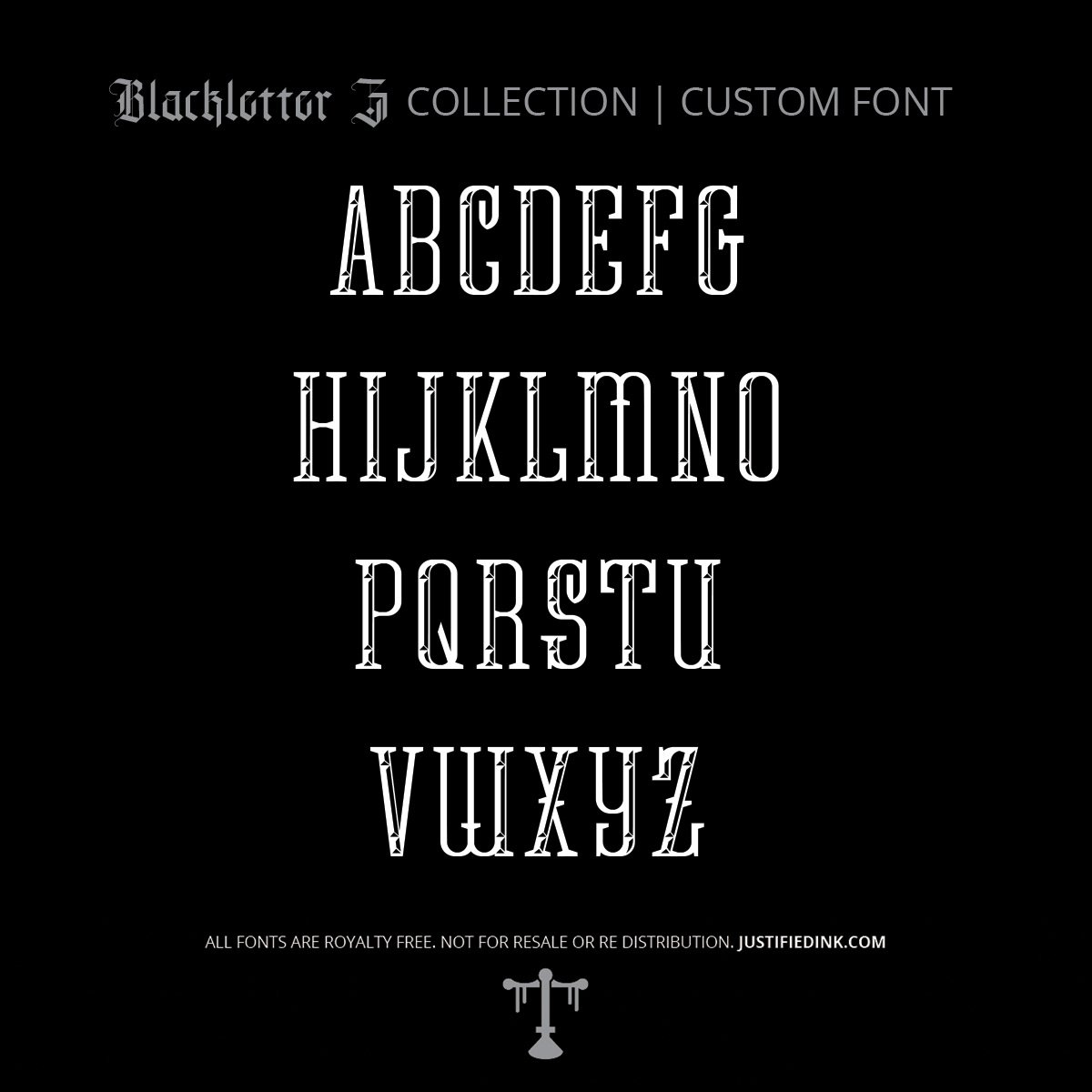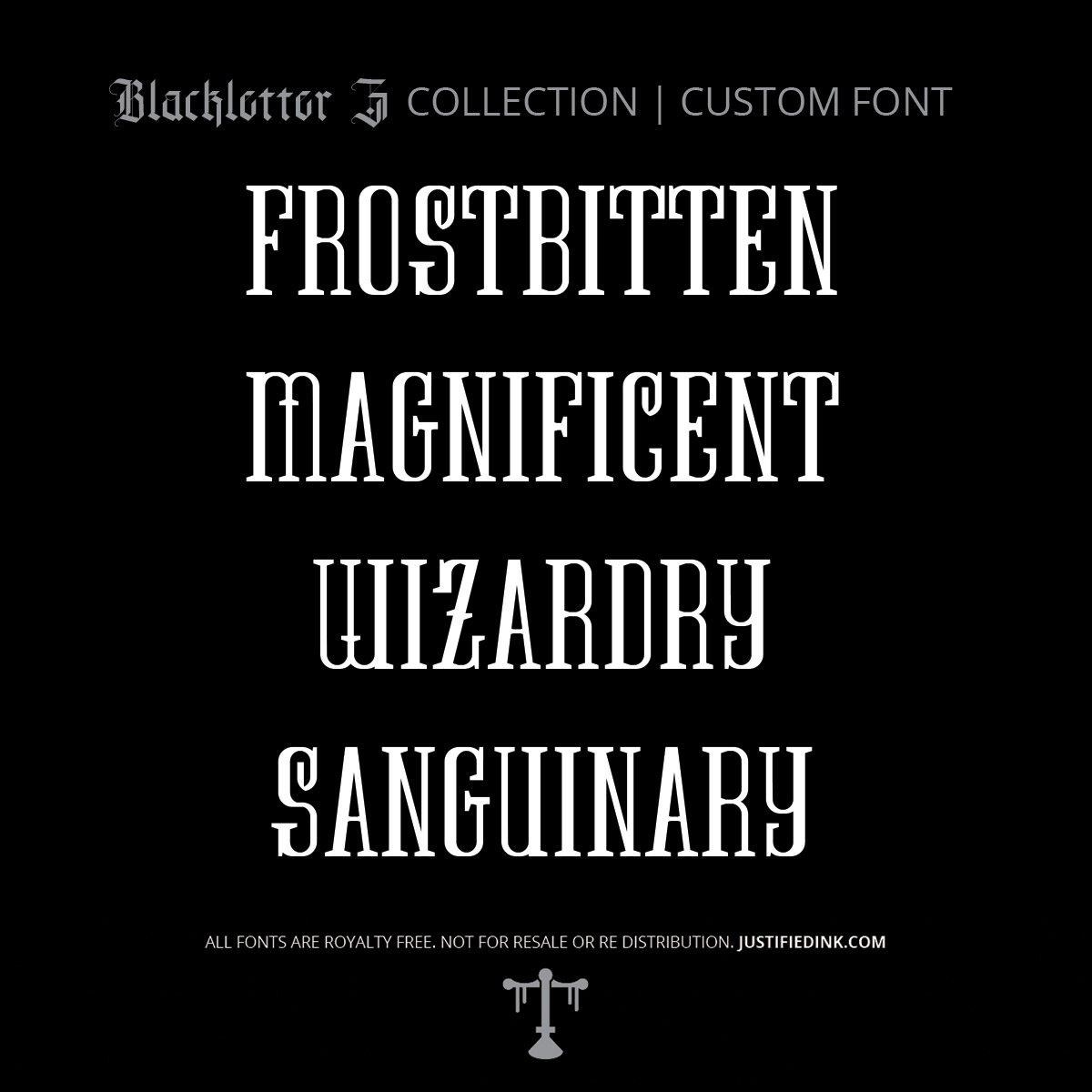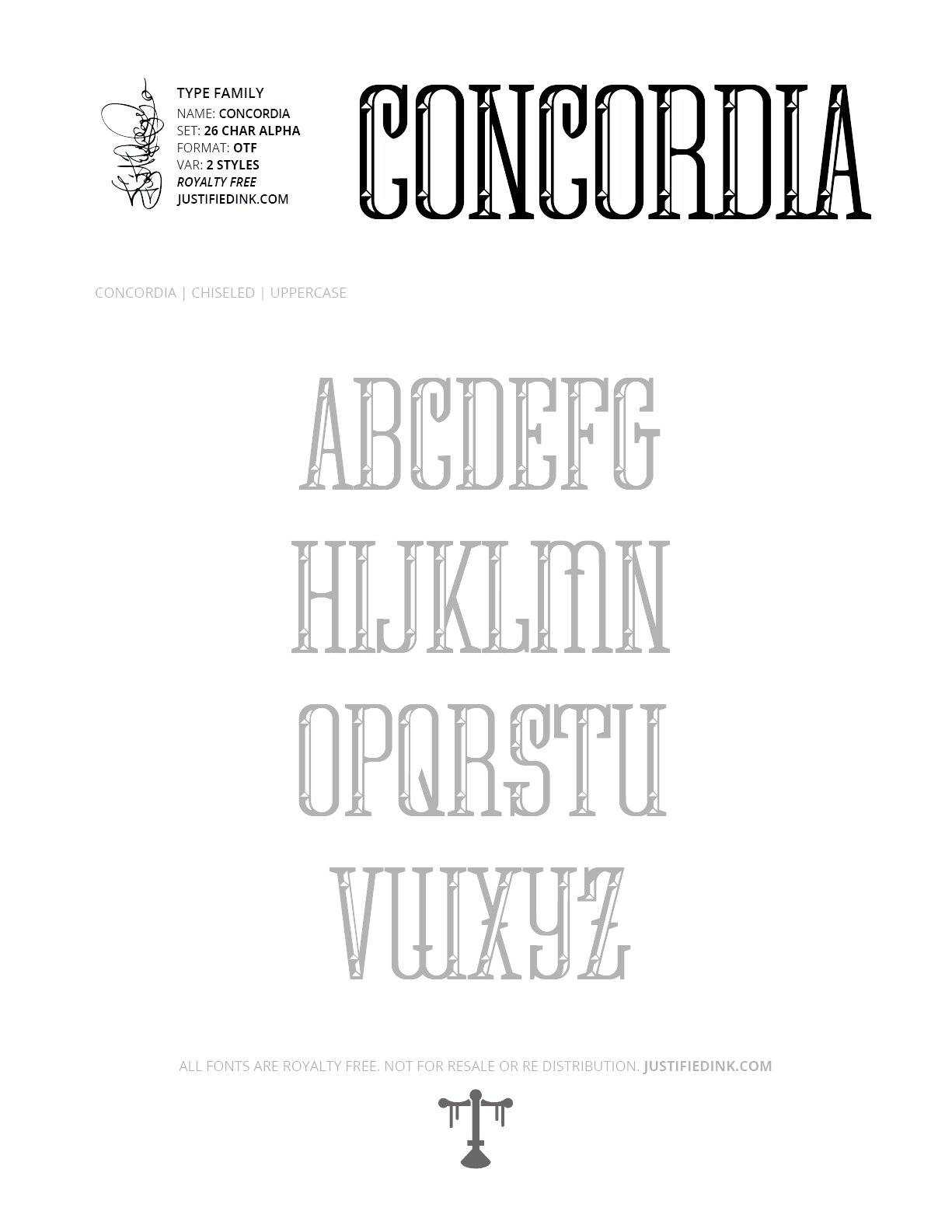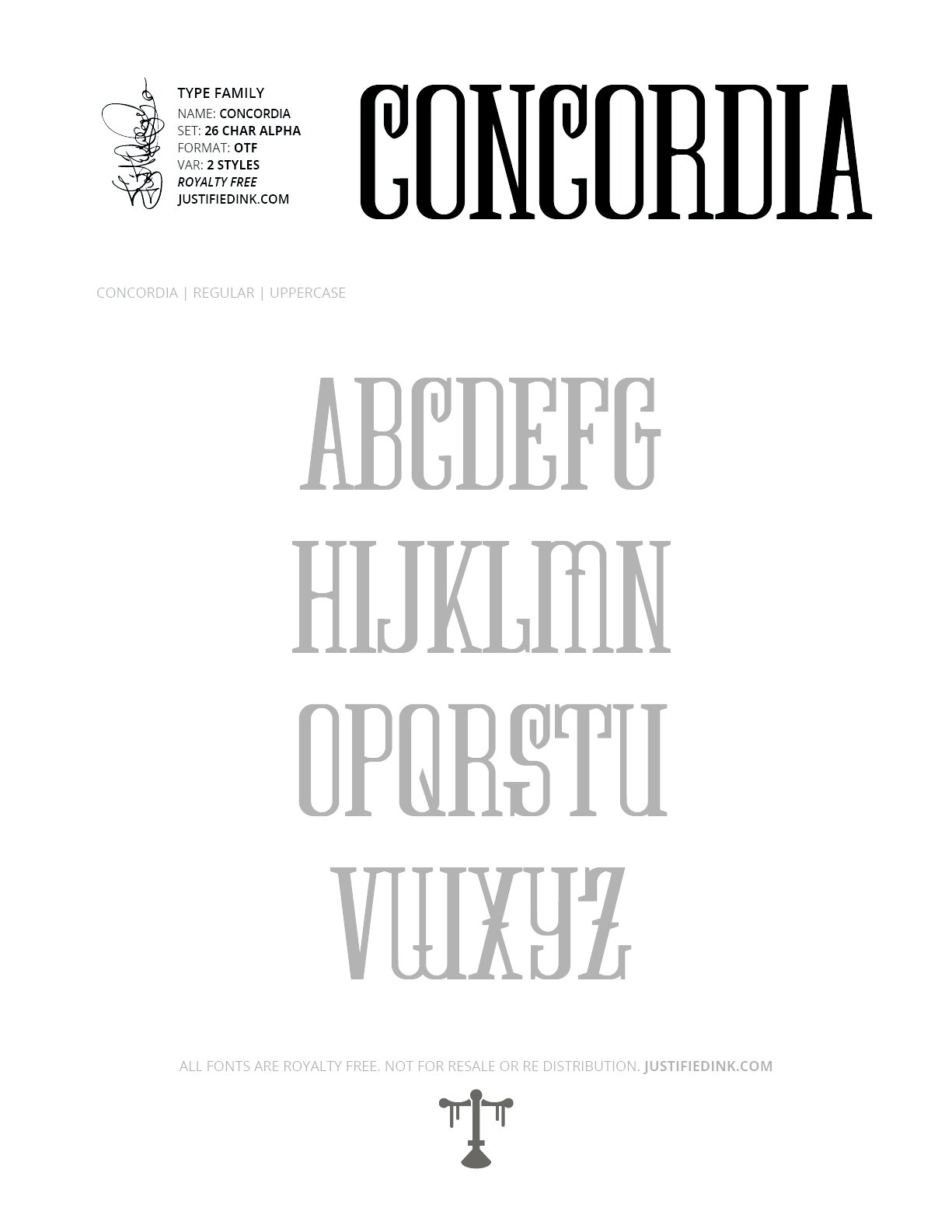
Concordia (2 styles) - Custom Font
Unity Carved in Stone.
Concordia takes its name from the enduring Latin expression Concordia parvae res crescunt, discordia maximae dilabuntur—"Through harmony, small things grow; through discord, great things fall apart." It is a reminder that strength is rarely born from force alone, but through balance, patience, and shared purpose.
Inspired by the monumental stone inscriptions of ancient Rome, Concordia is a tall, elegant slab serif built with clarity and permanence in mind. Every letter feels carefully chiseled into marble, standing with quiet authority while remaining highly readable across both large displays and refined layouts.
The alternate style introduces subtle beveled highlights along each carved stroke, creating the illusion of light catching freshly cut stone. Together, both styles evoke timeless monuments, weathered architecture, and the enduring craftsmanship of classical inscription.
Concordia Font by Justified Ink is designed for branding, editorial work, logos, tattoo concepts, apparel, and projects seeking classical elegance with modern precision.
Included printable worksheets allow you to study the proportions and disciplined construction behind each letterform.